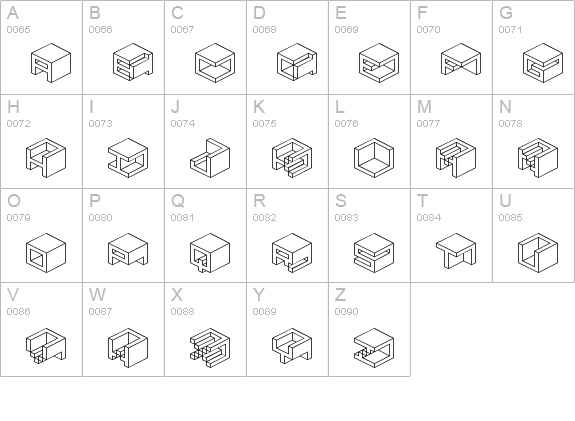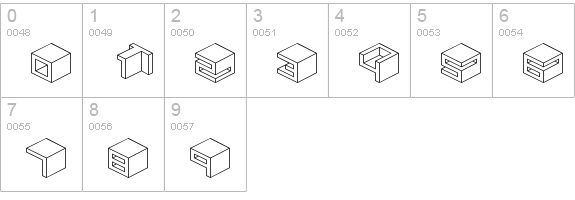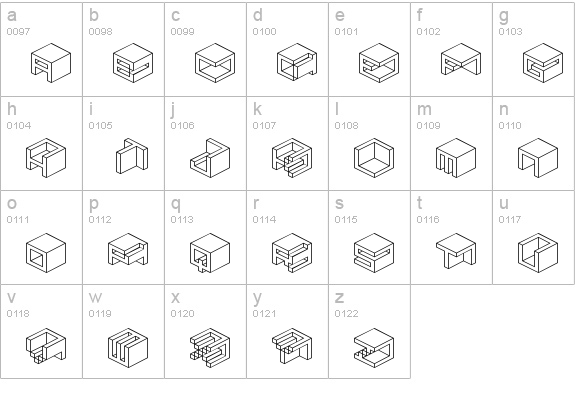
Qbicle 1 BRK font is a remarkable typeface that combines modernity and simplicity in a unique way. With its clean lines and geometric shapes, this font exudes a sense of elegance and professionalism that is perfect for any design project. What sets Qbicle 1 BRK font apart from other fonts is the fact that it is available for free download at FontsMarket.com. This means that anyone can easily access and use this stunning font without any cost. Whether you are a graphic designer, web developer, or simply someone who appreciates beautiful typography, Qbicle 1 BRK font is a must-have in your collection. Its versatility allows it to be used in a wide range of applications, from logos and branding to website headers and print materials. The attention to detail in Qbicle 1 BRK font is truly remarkable. Each character is meticulously crafted, ensuring legibility and visual appeal. The font's bold and confident presence on the page is sure to grab attention and make a lasting impression. With its freely available download, Qbicle 1 BRK font offers incredible value to designers and creatives. It provides a high-quality solution for those seeking a modern and professional typeface without having to spend a dime. So, if you're looking to elevate your designs and make a statement, look no further than Qbicle 1 BRK font. Download it for free at FontsMarket.com and unleash your creativity with this exceptional font.